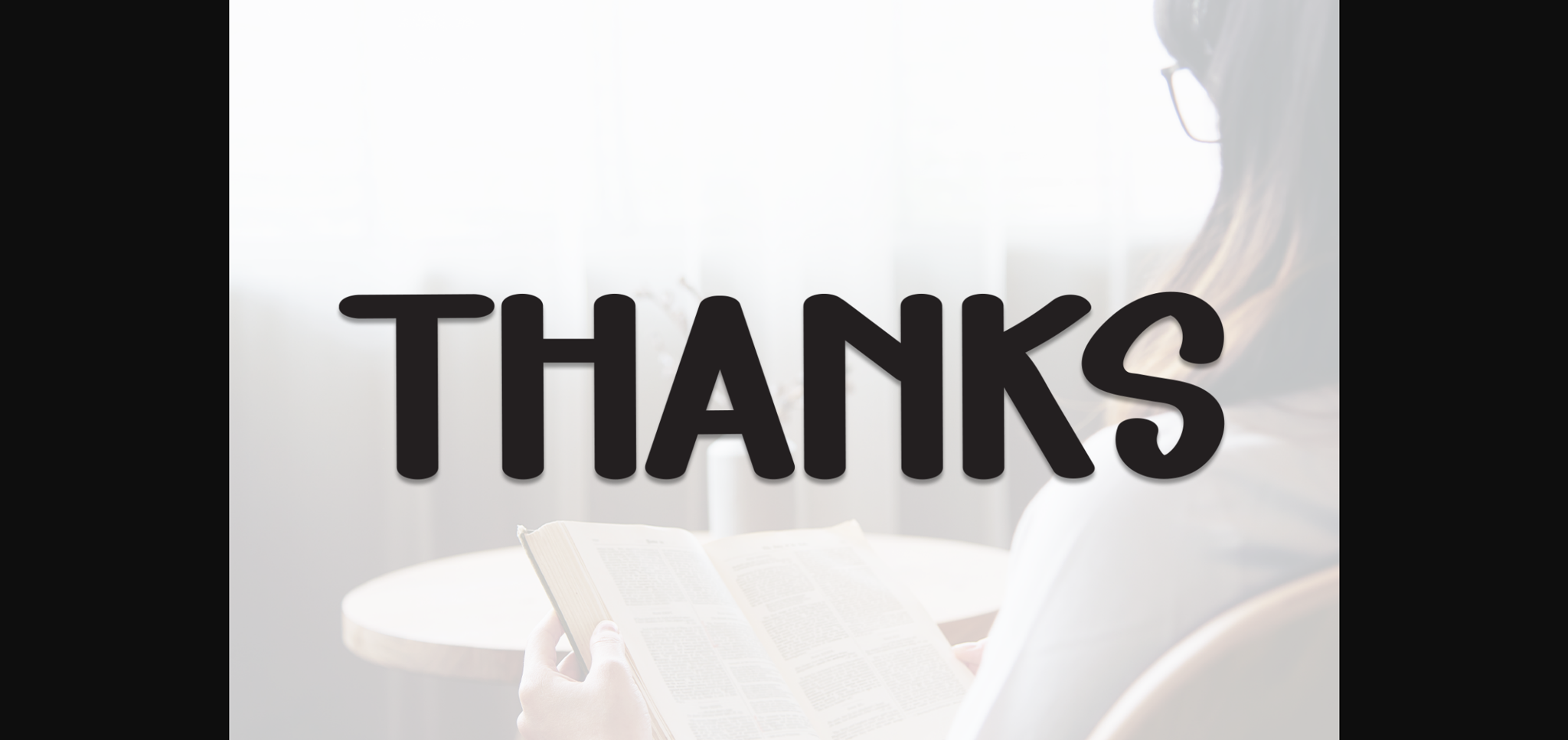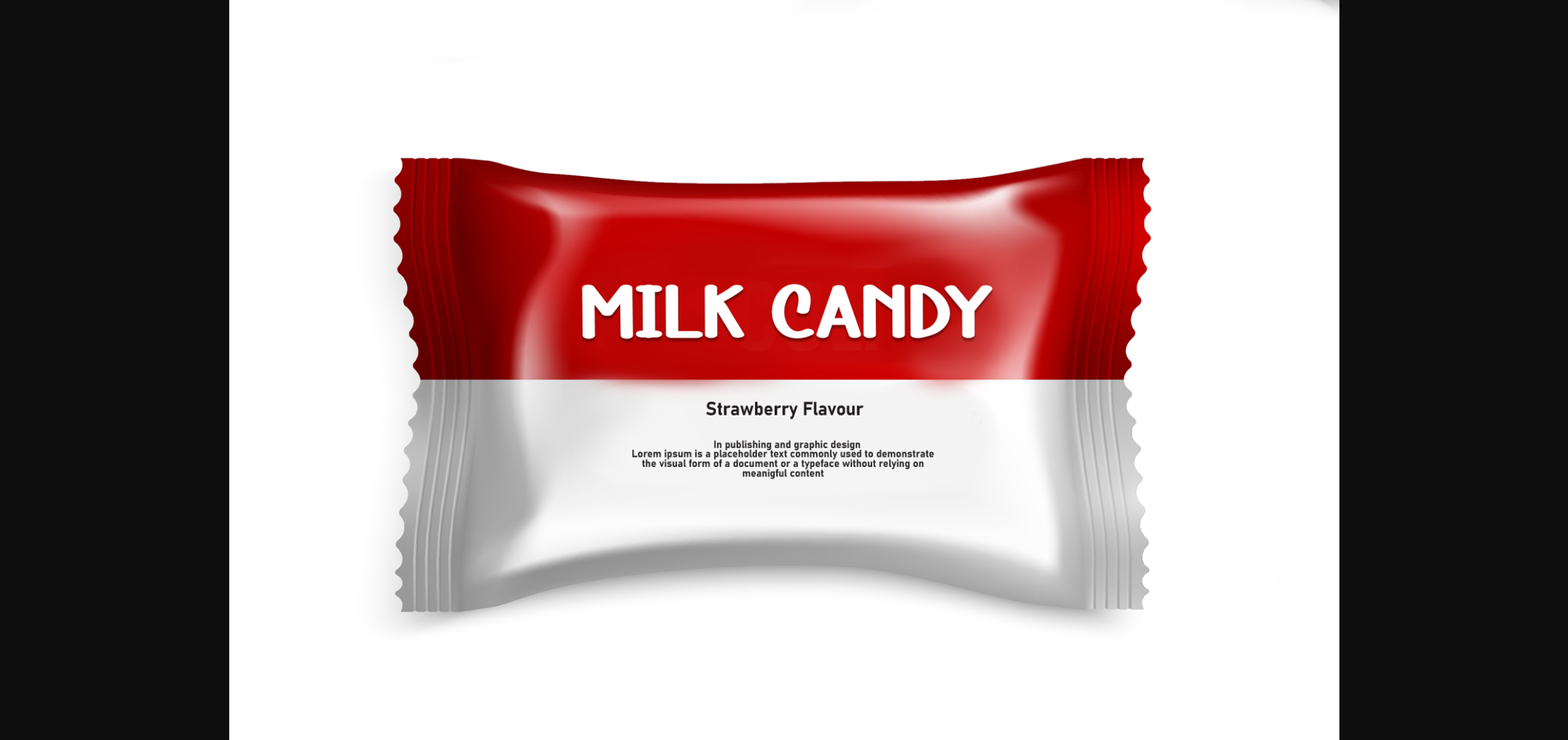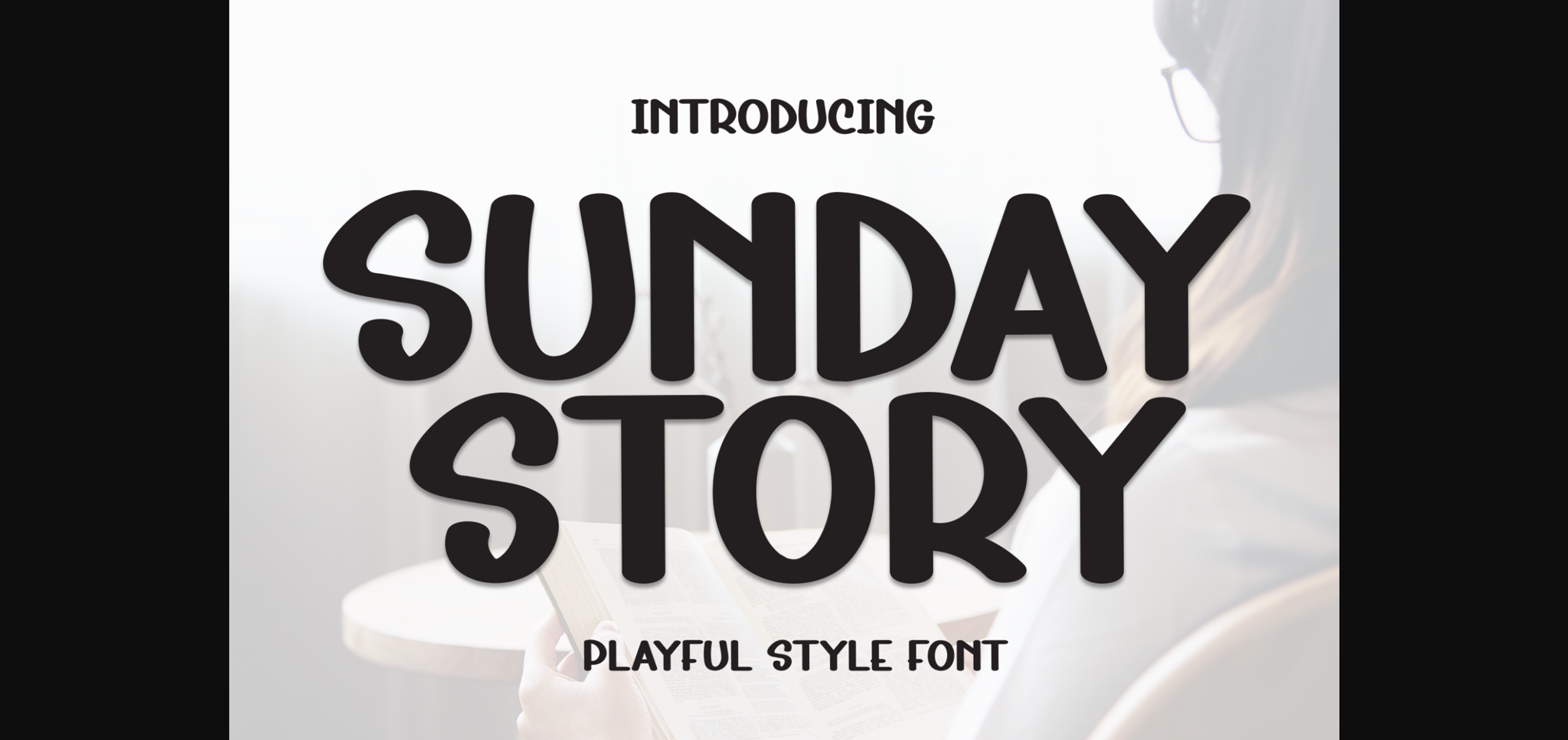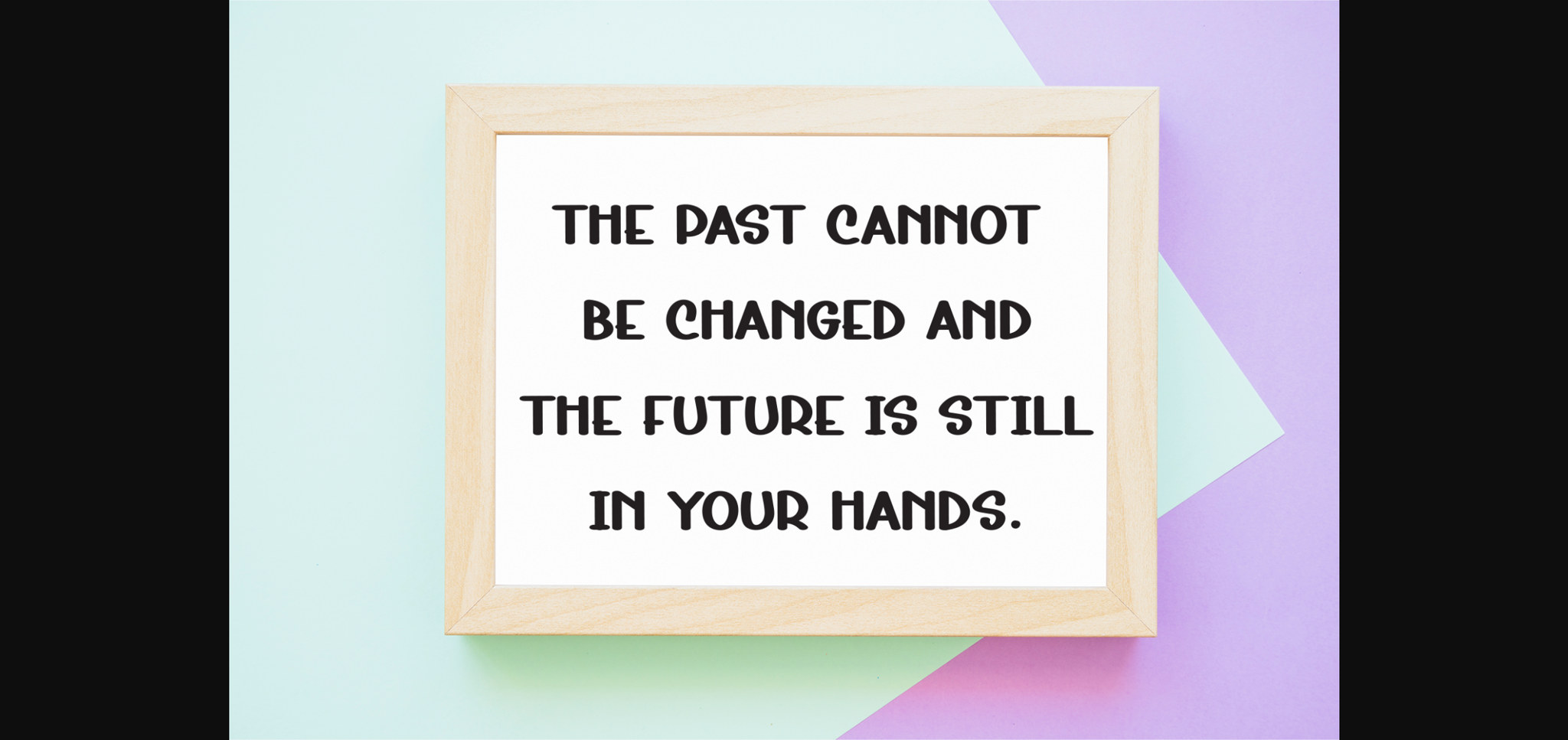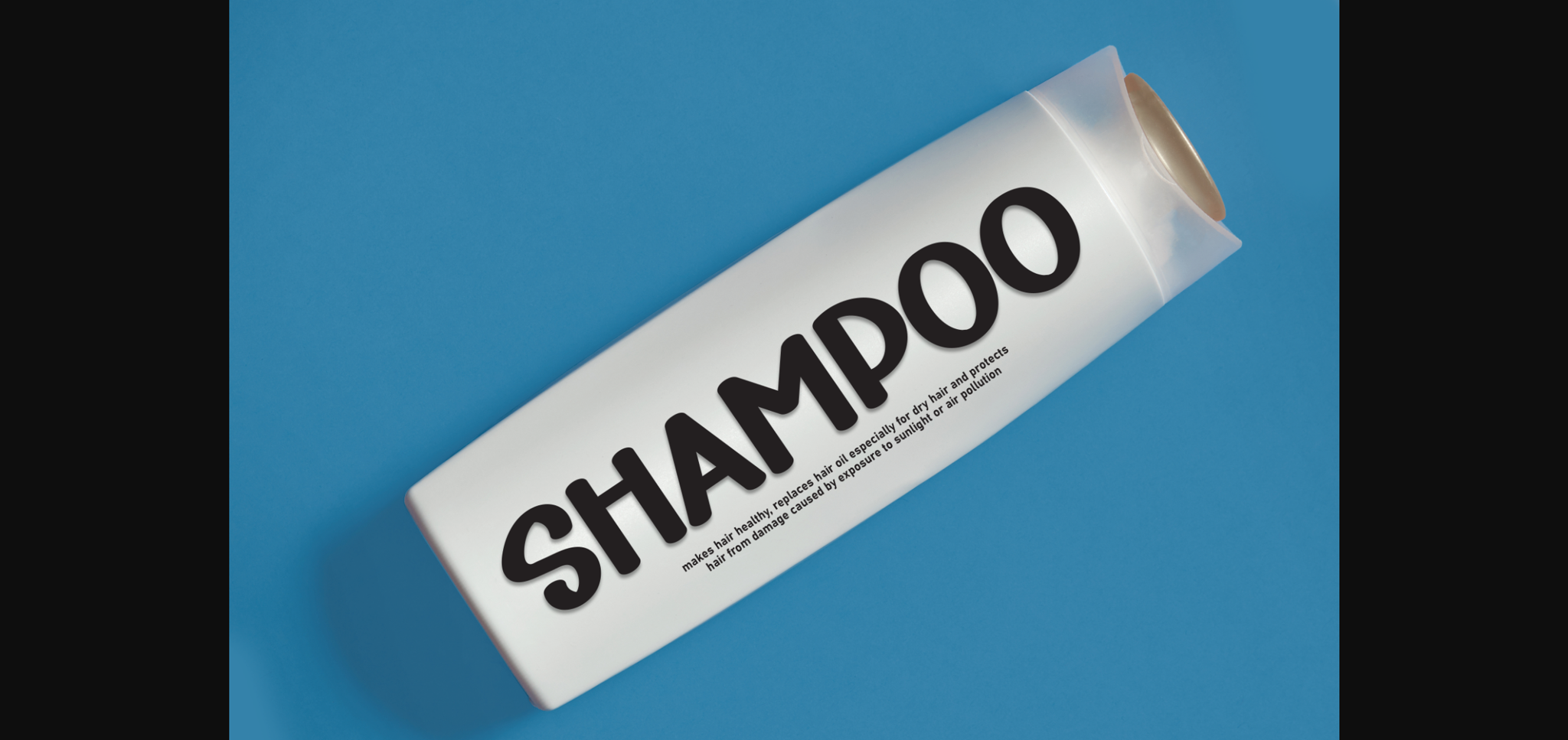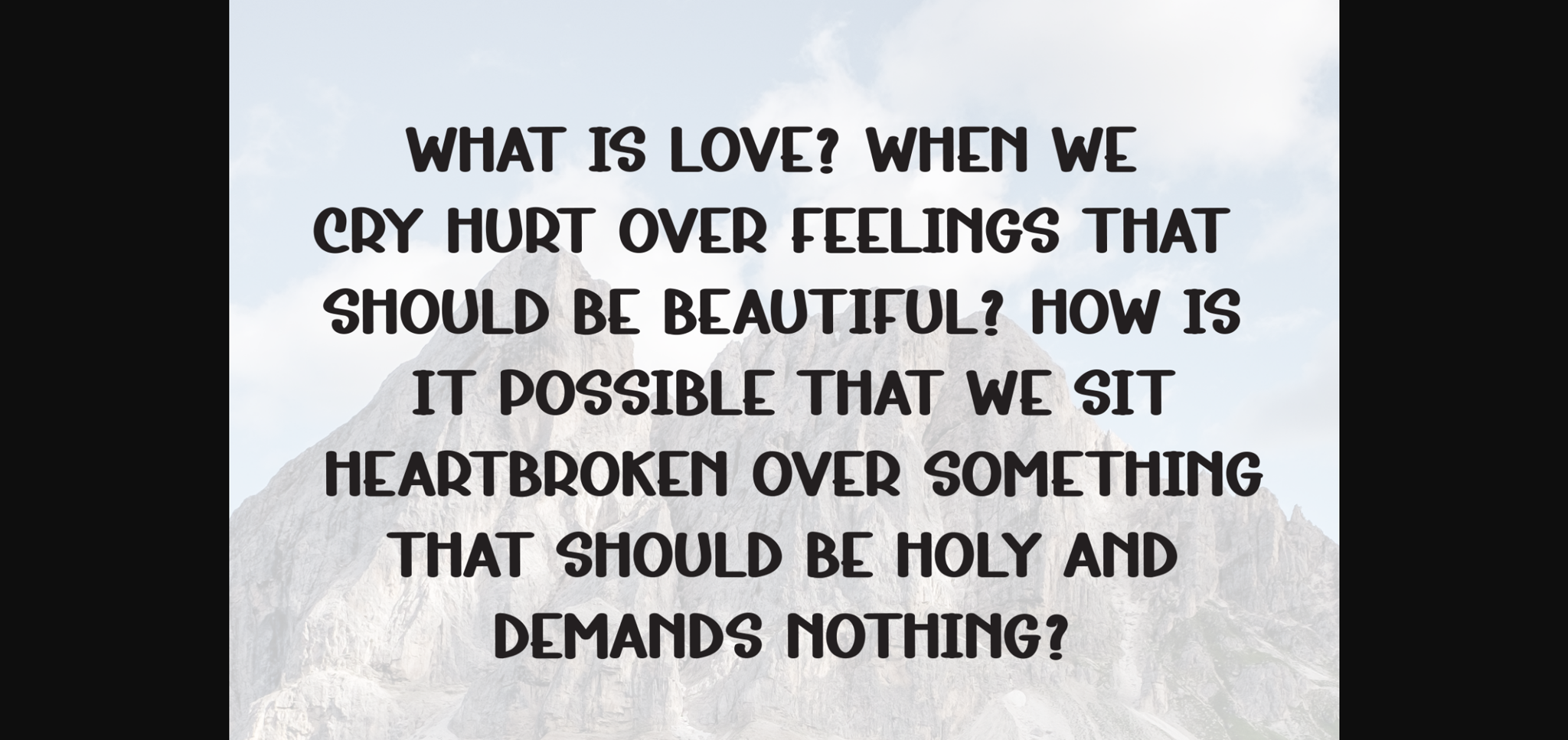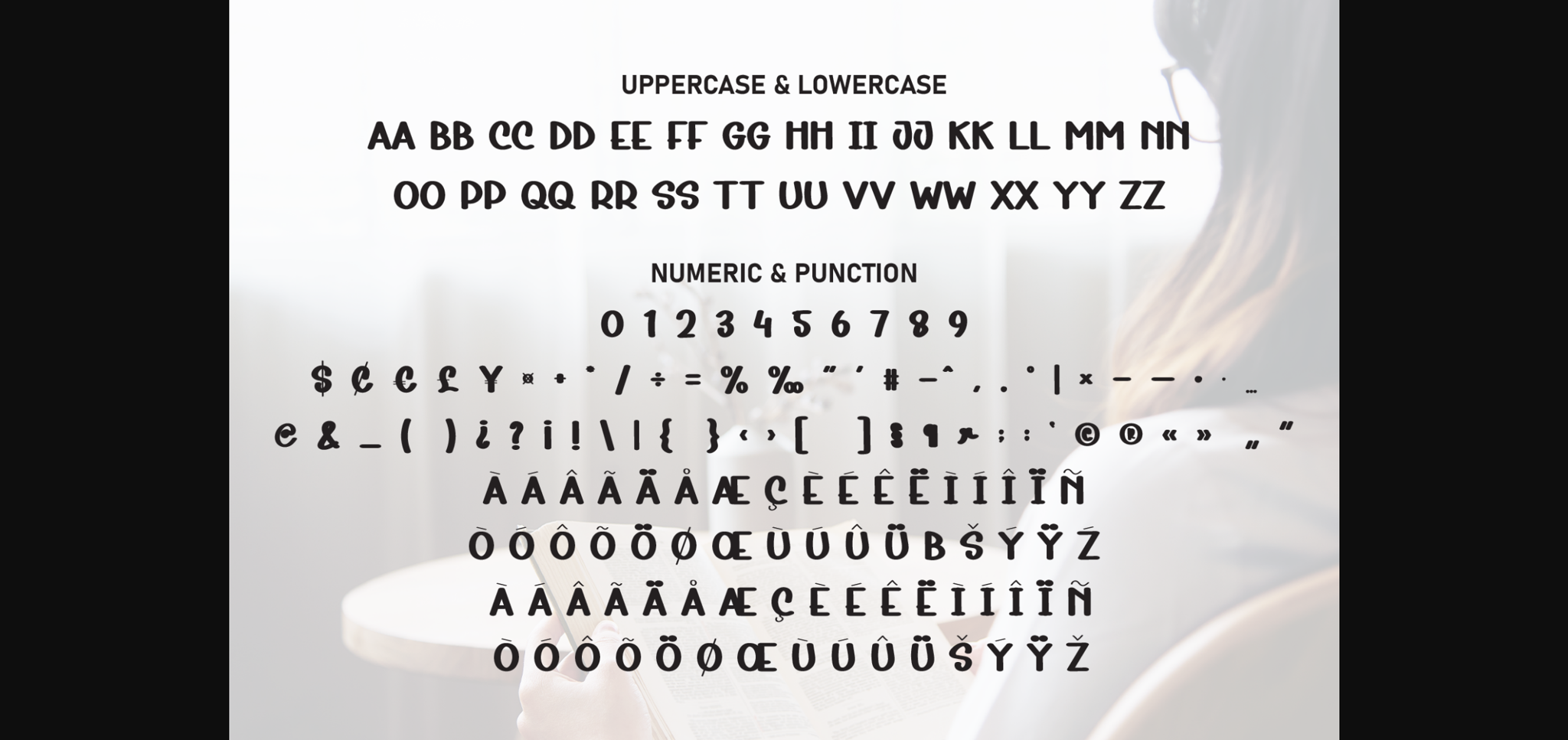
Sunday Story Font
About Sunday Story Font
Sunday Story is a sweet and friendly sans-serif font. Cute and versatile this font is ideal for writing wedding invitations, cards, or any other design that might need a fun touch!